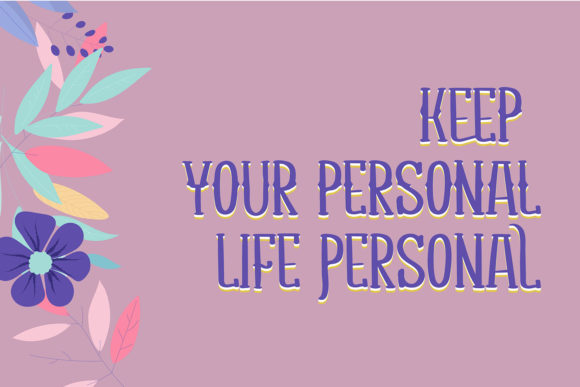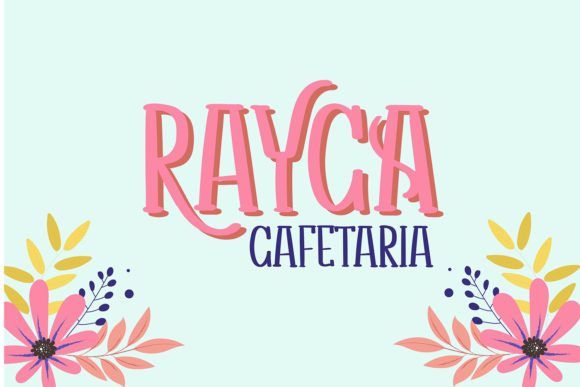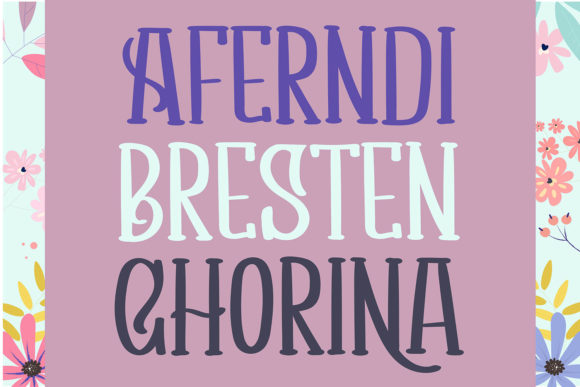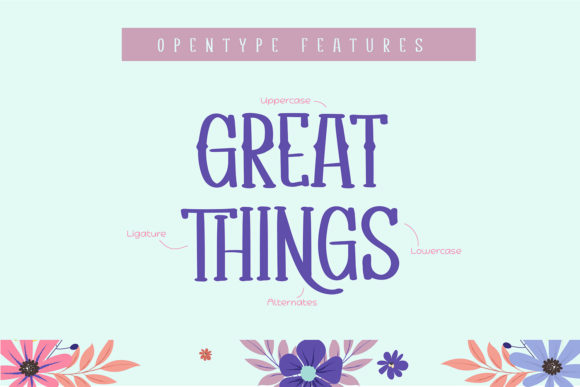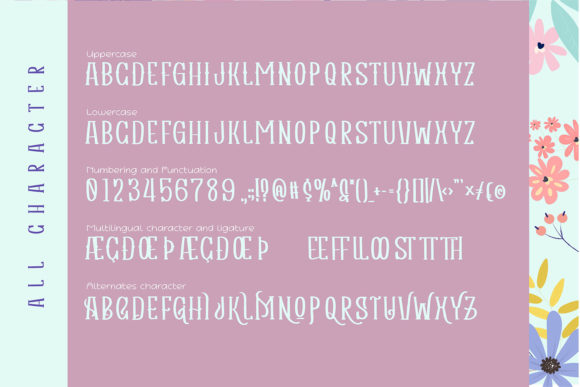
Introduction to Monstira Font
Monstira is a cool, fancy and unique display font.
It is defined by smooth curves and is perfect for fashion branding or editorial designs This font is PUA encoded which means you can access all of the glyphs and swashes with ease.
Key Features of Monstira Font
Why Choose Monstira Font?